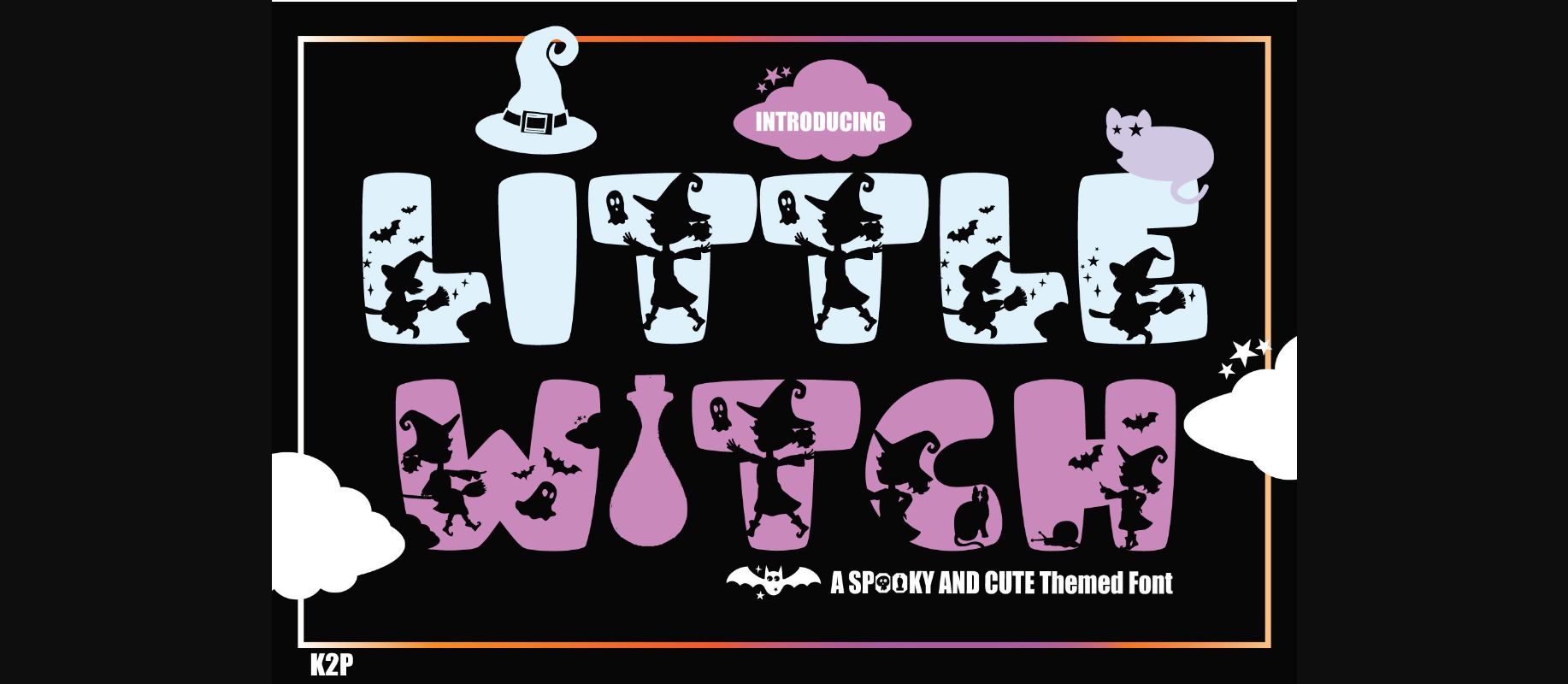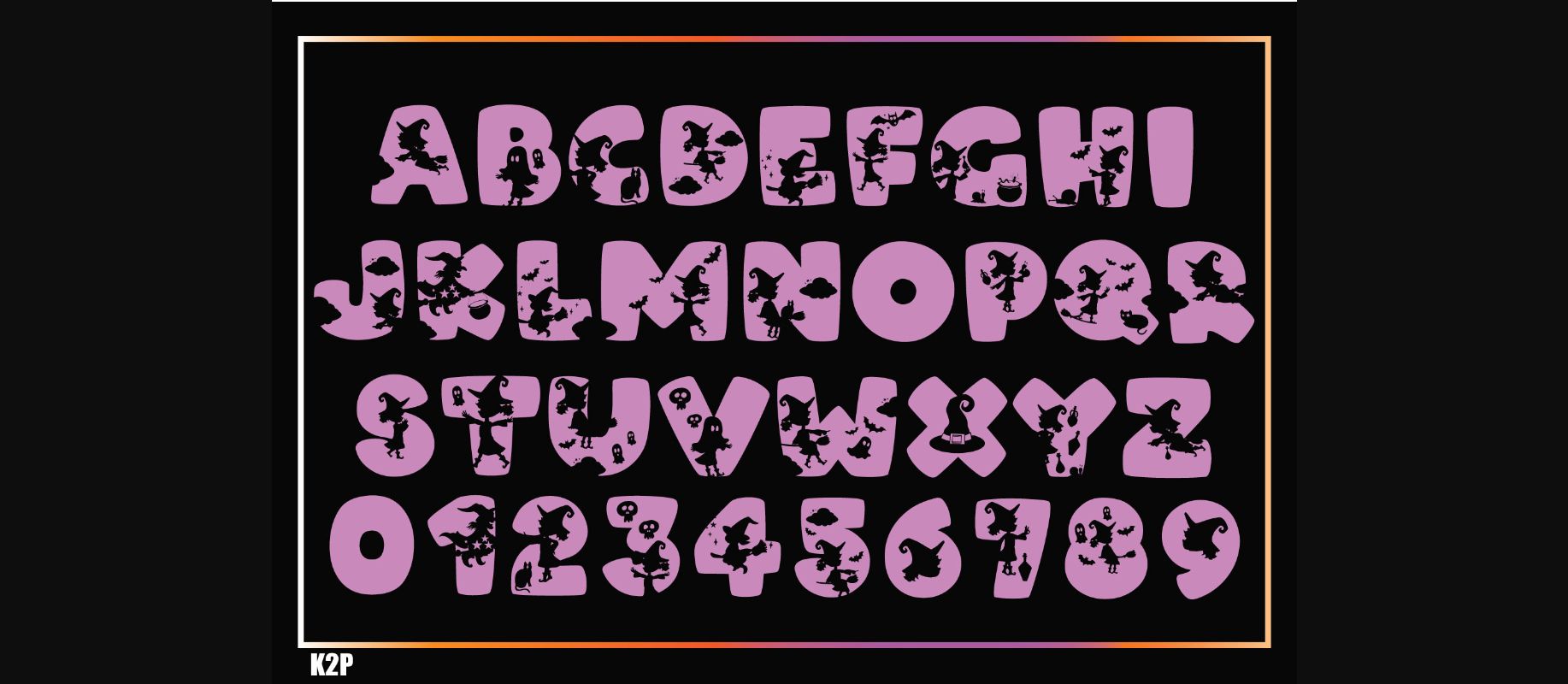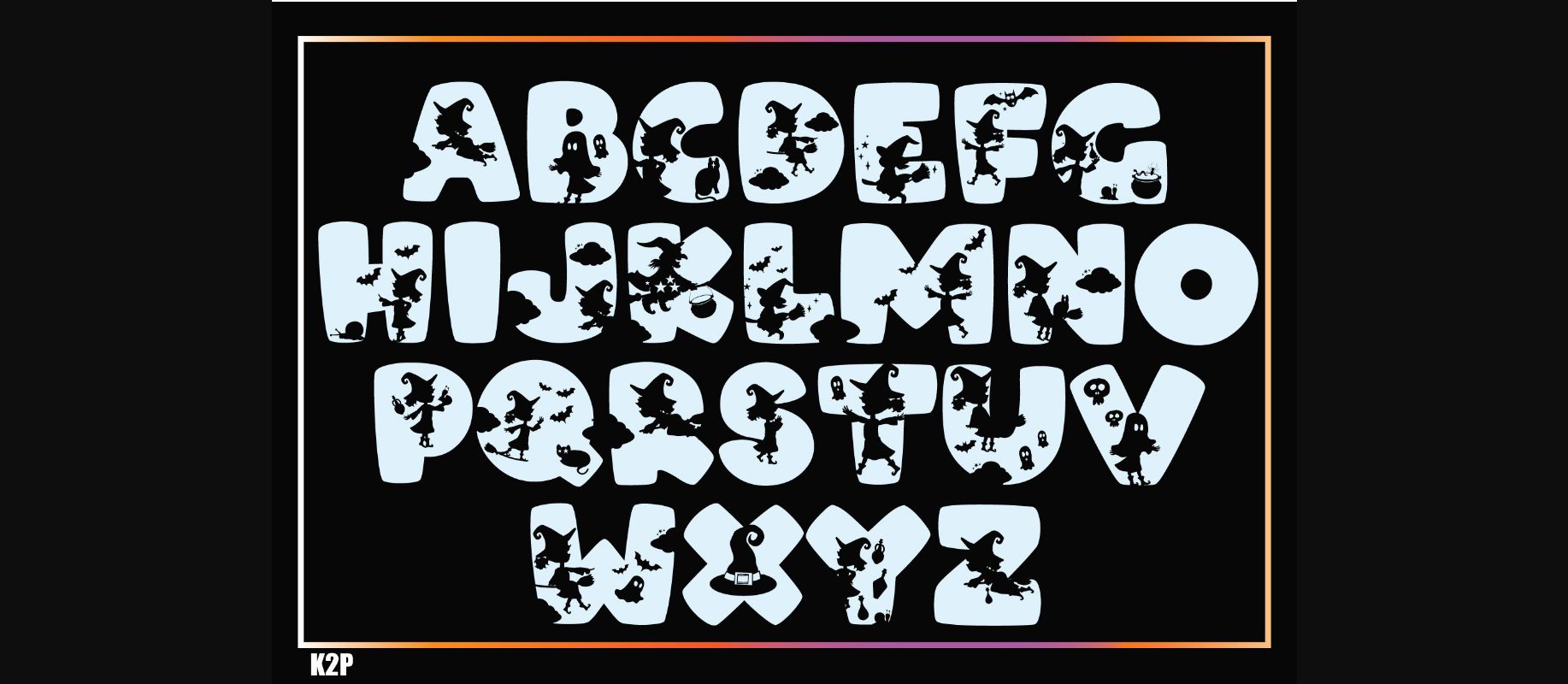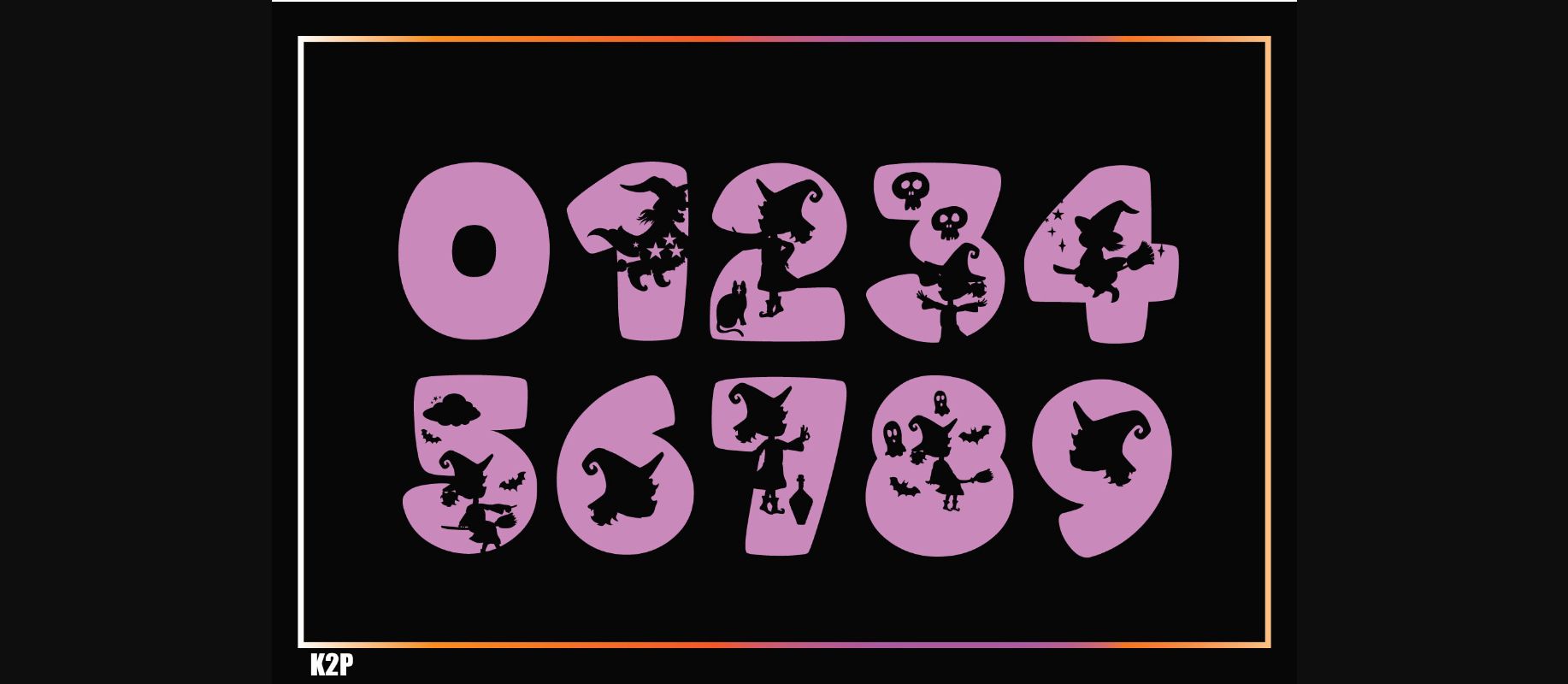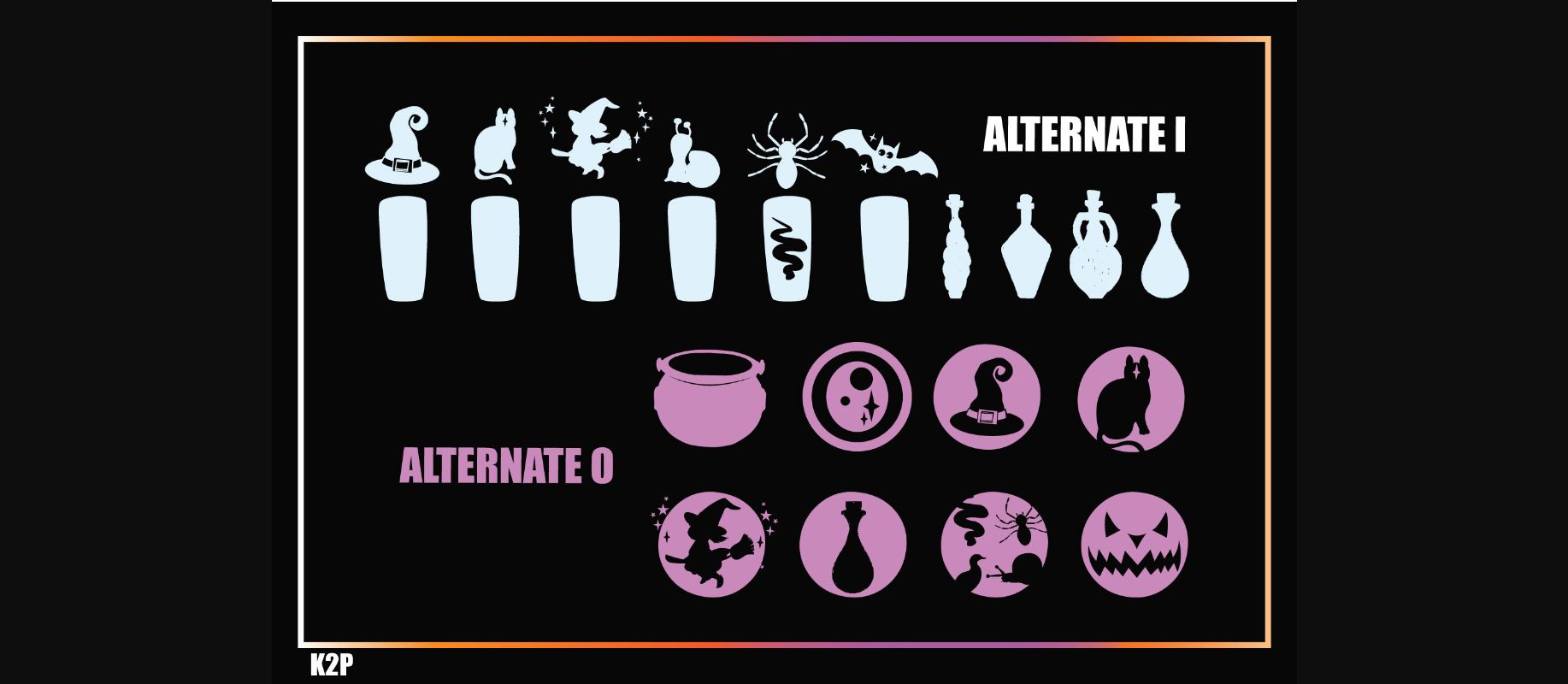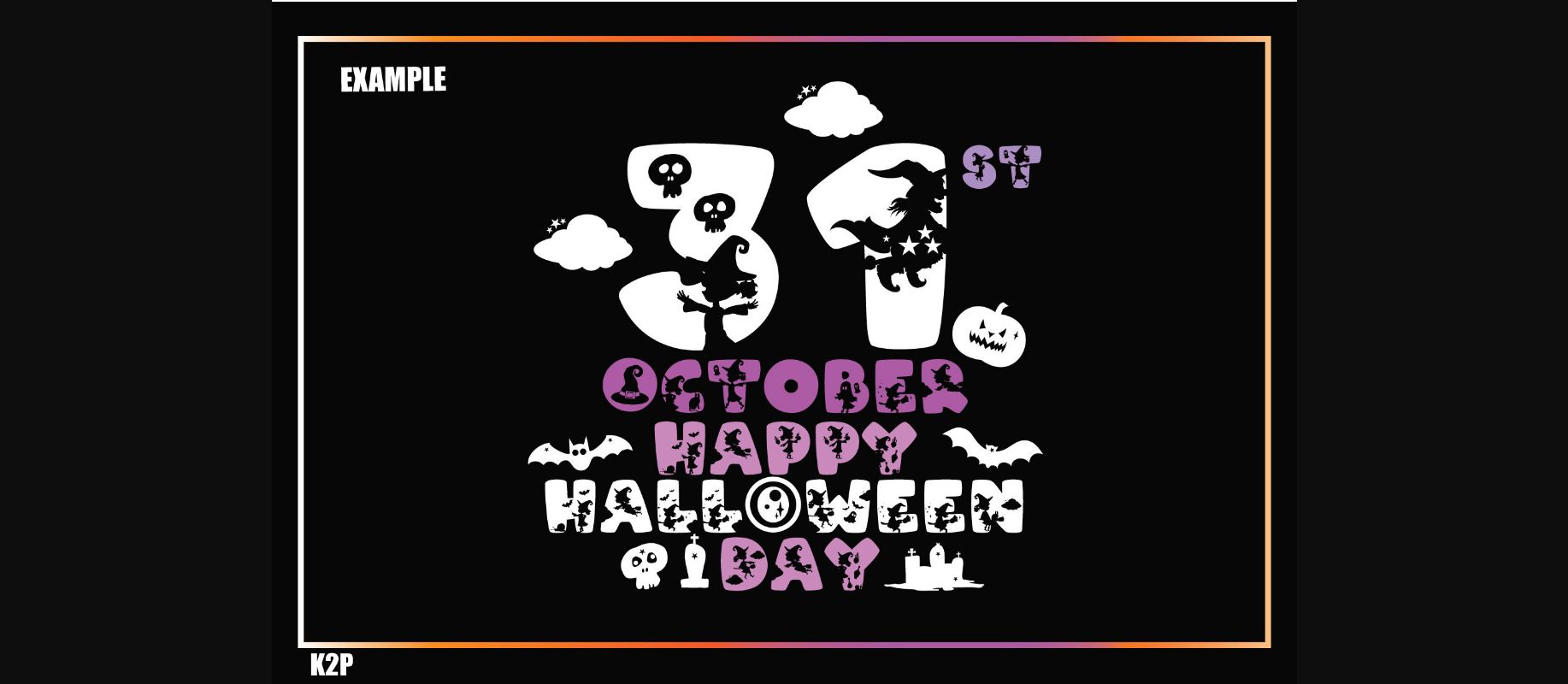
Little Witch Font
About Little Witch Font
Little Witch is a thick lettered and incredibly unique decorative font. It can be used for various design ideas, particularly those related to the Halloween Holiday. This font is PUA encoded which means you can access all of the glyphs and swashes with ease.